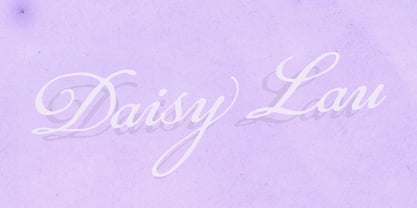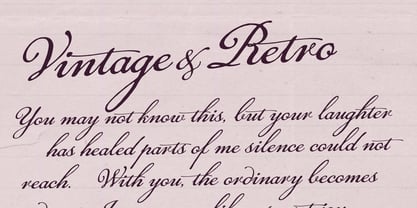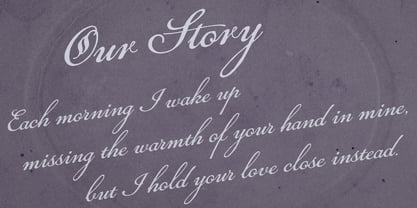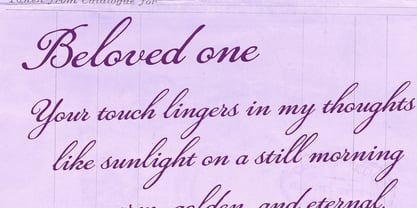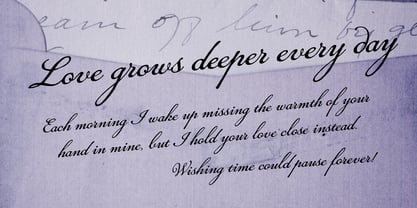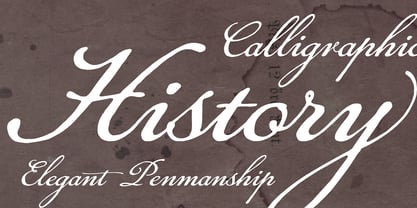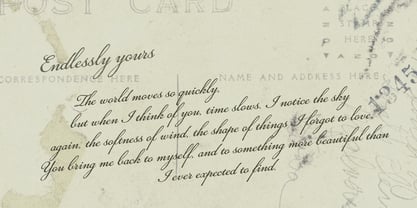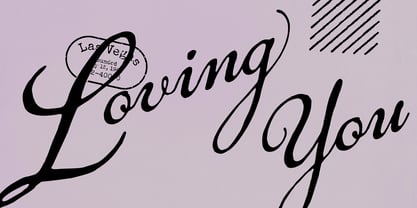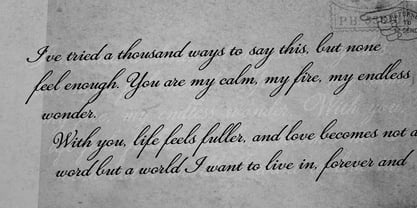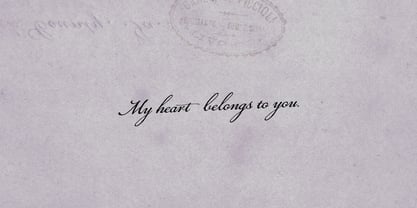
Daisy Lau
La familia tipográfica Daisy Lau fue diseñada por Ryoichi Tsunekawa y publicada por Dharma Type. Daisy Lau contiene 1 estilos.
Based on 19th-century script styles, this font features an inky texture that gives it the look of authentic handwriting.
Its smooth, flowing strokes evoke a sense of nostalgia and antique charm, perfect for designs with a vintage or historical feel.